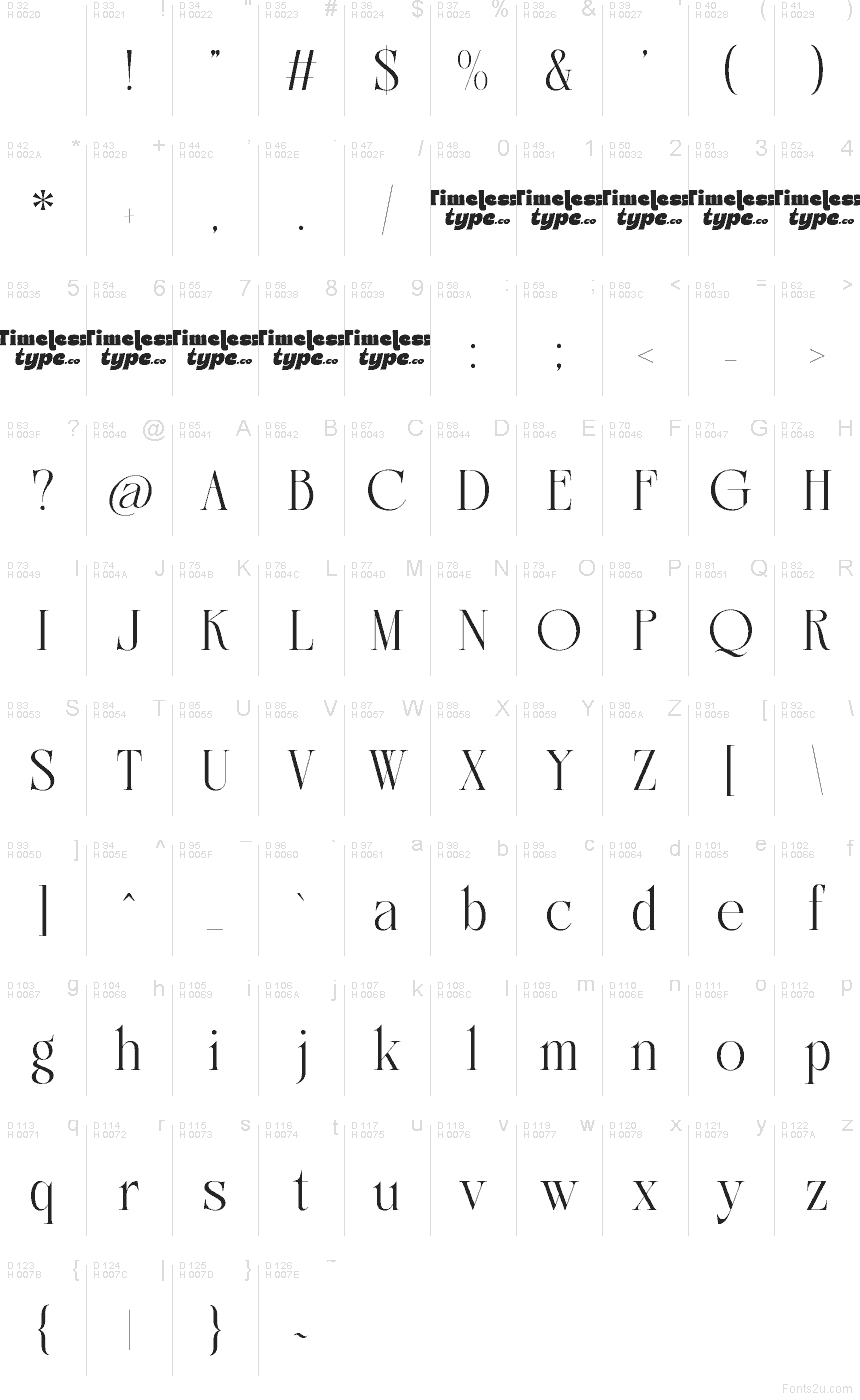
Makcasa by TimelessType.co is a free high-contrast serif with a distinctly modern editorial mood. The letters pair razor-thin hairlines with tall, graceful curves, giving the font a polished fashion-mag feel while the sharp joins and narrow stress keep it airy rather than heavy.
It fits naturally in branding, magazine mastheads, beauty packaging, book covers, and gallery or boutique identities where a refined headline needs more poise than warmth. As a free font, Makcasa also suits short title cards, logo wordmarks, and standout initials, because its dramatic contrast and elegant sweep do most of the styling on their own.